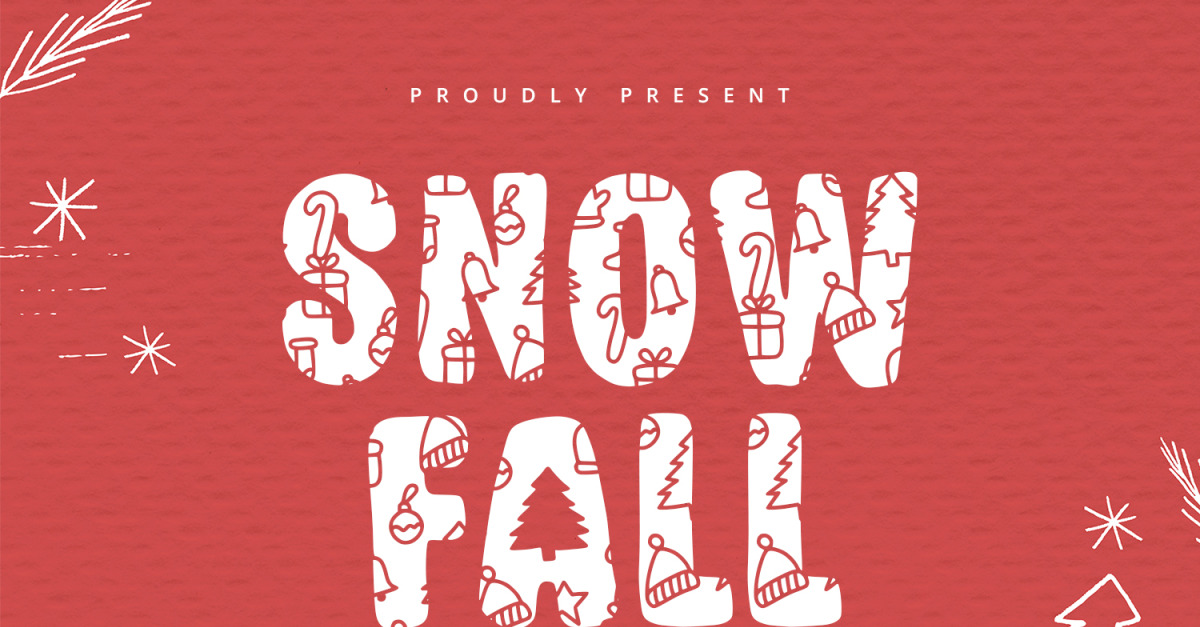
Snowfall - Unique Display Font
Snowfall is a display font with cute and unique style. It will be perfectly used for Branding, Logo Design, Lettering, Logotype, Clothing, Poster, magazine, packaging, posters, shopping bags, t-shirts, book covers, photography, special events and other design project.
- Uppercase & Lowercase
- Numerals
- Punctuations (OpenType Standard)
- Accents (Multilingual Characters)
- Ligatures and Alternative Style Stylistic Set